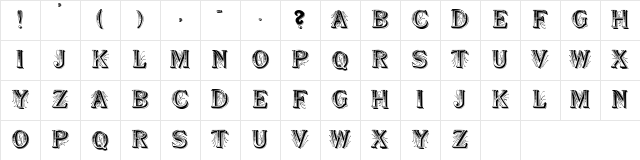
DanceHallSCapsSSK Regular
Design Context for DanceHallSCapsSSK
DanceHallSCapsSSK is a composed and adaptable typeface that performs quietly and consistently across a wide range of design contexts.